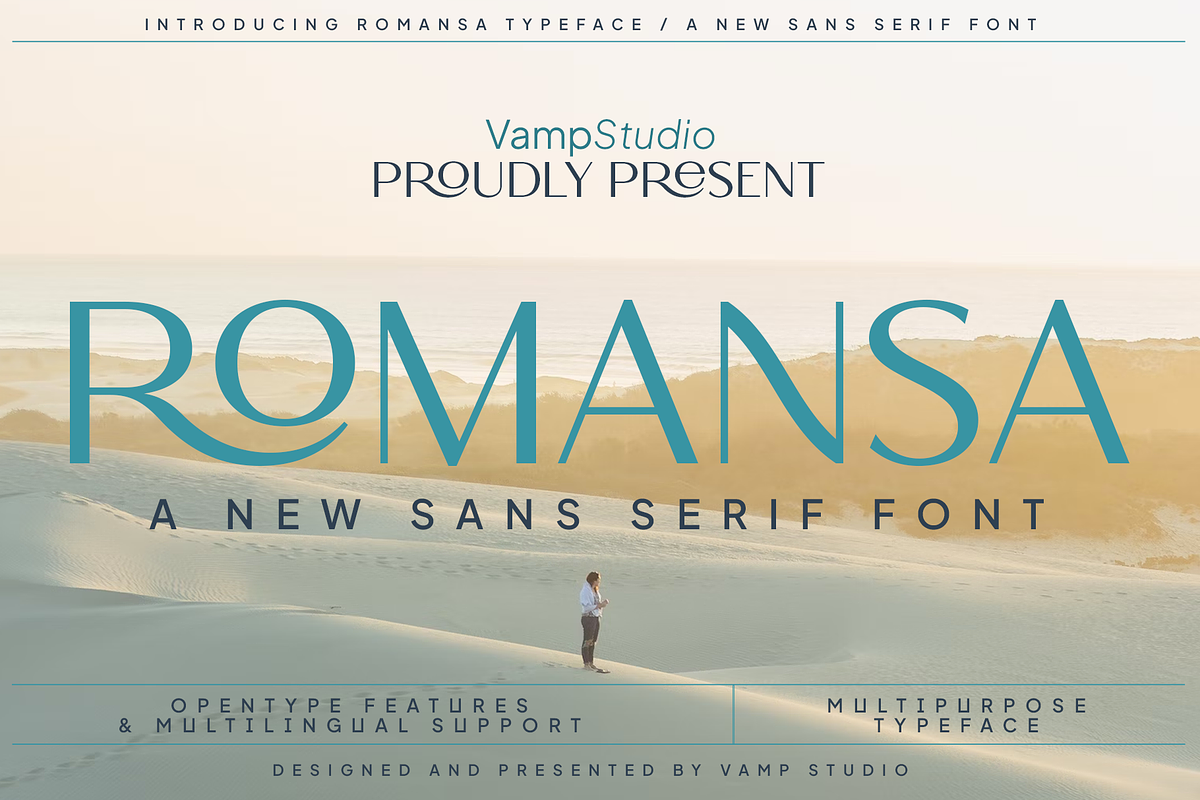
Romansa New Stylish Sans Serif Font Free Download is a sleek and modern typeface that combines clean lines with stylish, contemporary design elements. With its elegant simplicity and versatility, this font is perfect for branding, website design, logos, editorial layouts, and social media graphics.
Romansa offers a smooth and balanced feel, making it suitable for both headlines and body text. Whether you’re designing for fashion, tech, or any other industry that requires a modern look, Romansa New Stylish Sans Serif Font Free Download brings a professional yet approachable vibe to your typography.
Add sophistication and style to your designs with Romansa New Stylish Sans Serif Font Free Download and create a sleek, modern aesthetic that stands out. Ideal for designers looking for a clean, trendy font that delivers both elegance and readability.